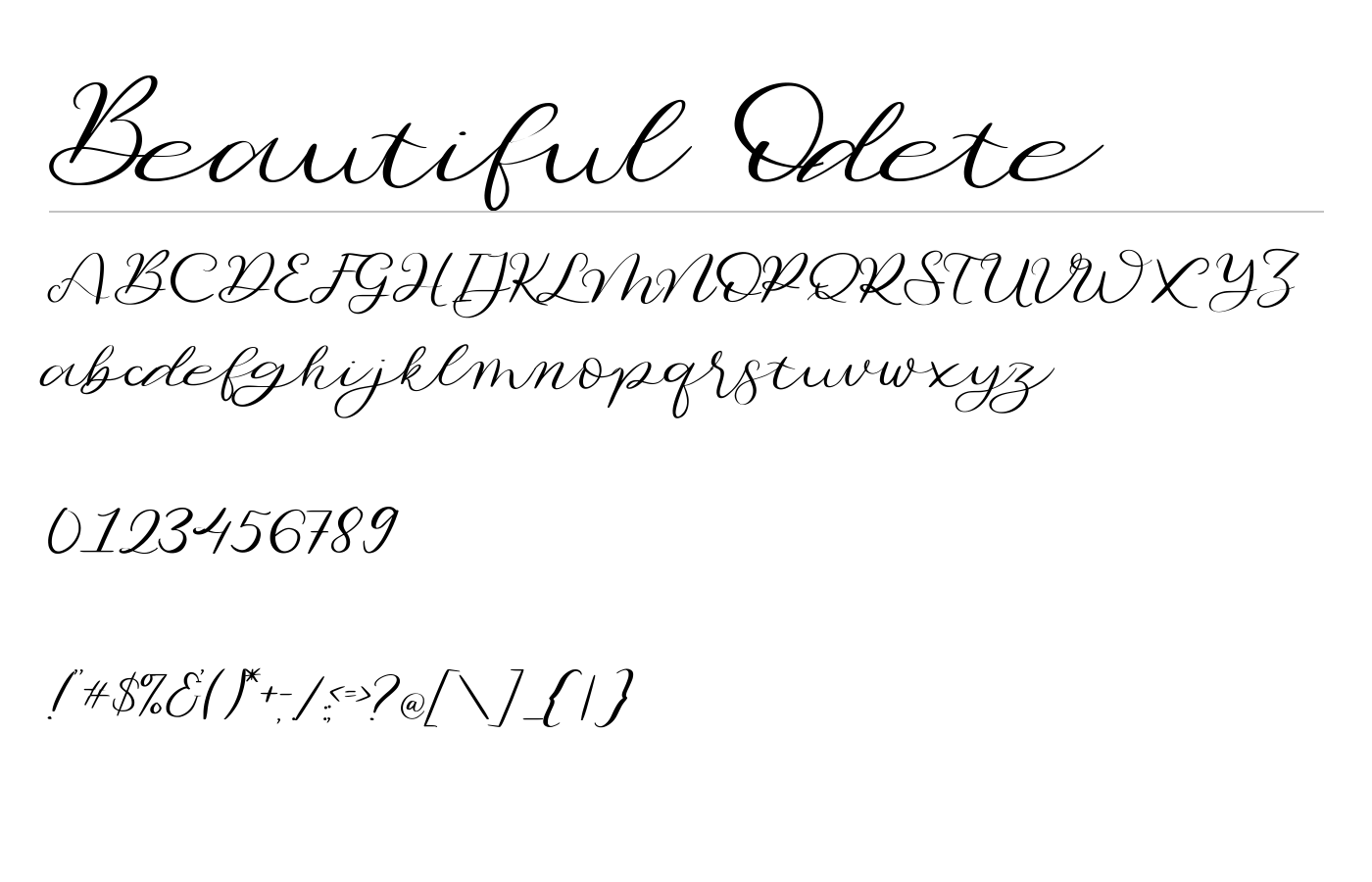
Beautiful Odete is an elegant script font with flowing, hand-drawn letterforms that exude sophistication and charm. Its delicate strokes and graceful curves make it ideal for luxury branding, wedding invitations, and feminine designs where a personal, refined touch is desired. This font works beautifully in headlines and decorative text, adding a stylish and romantic flair to any project.
Beautiful Odete Font
About Beautiful Odete Font
| Font family | Beautiful Odete Font |
| Designer | Paily Studio |